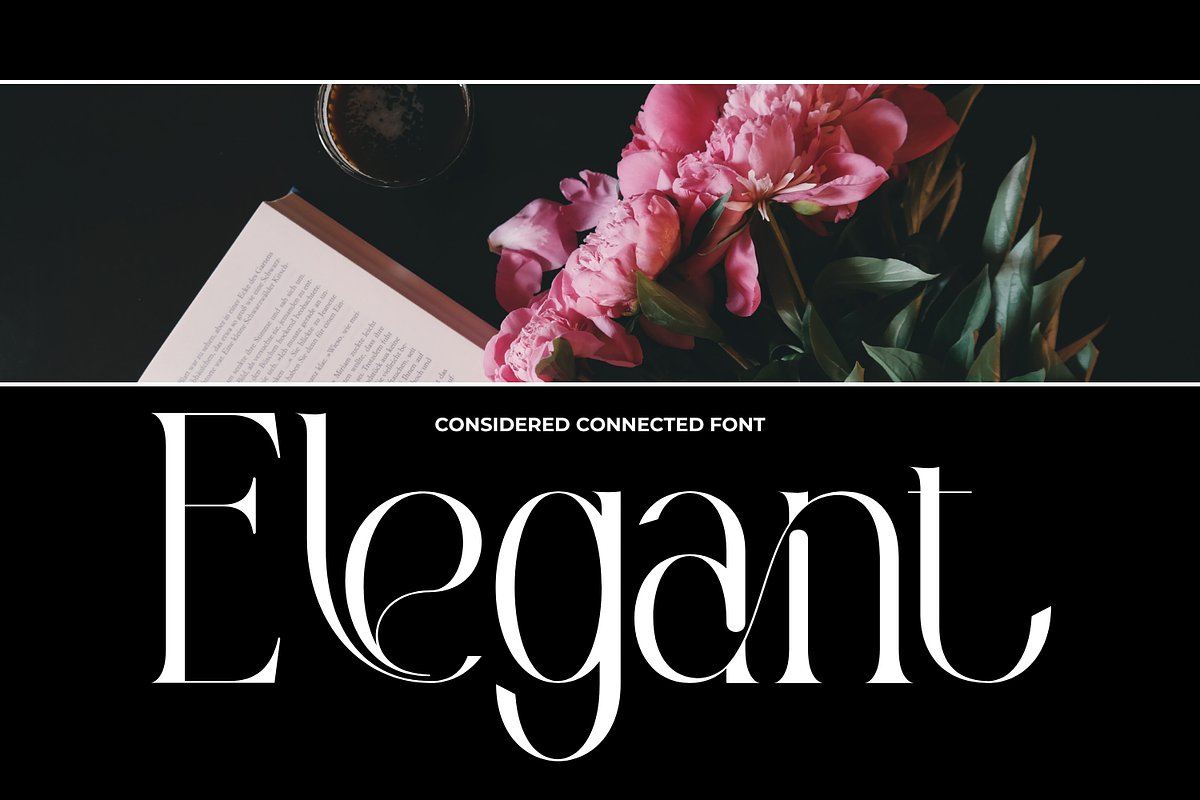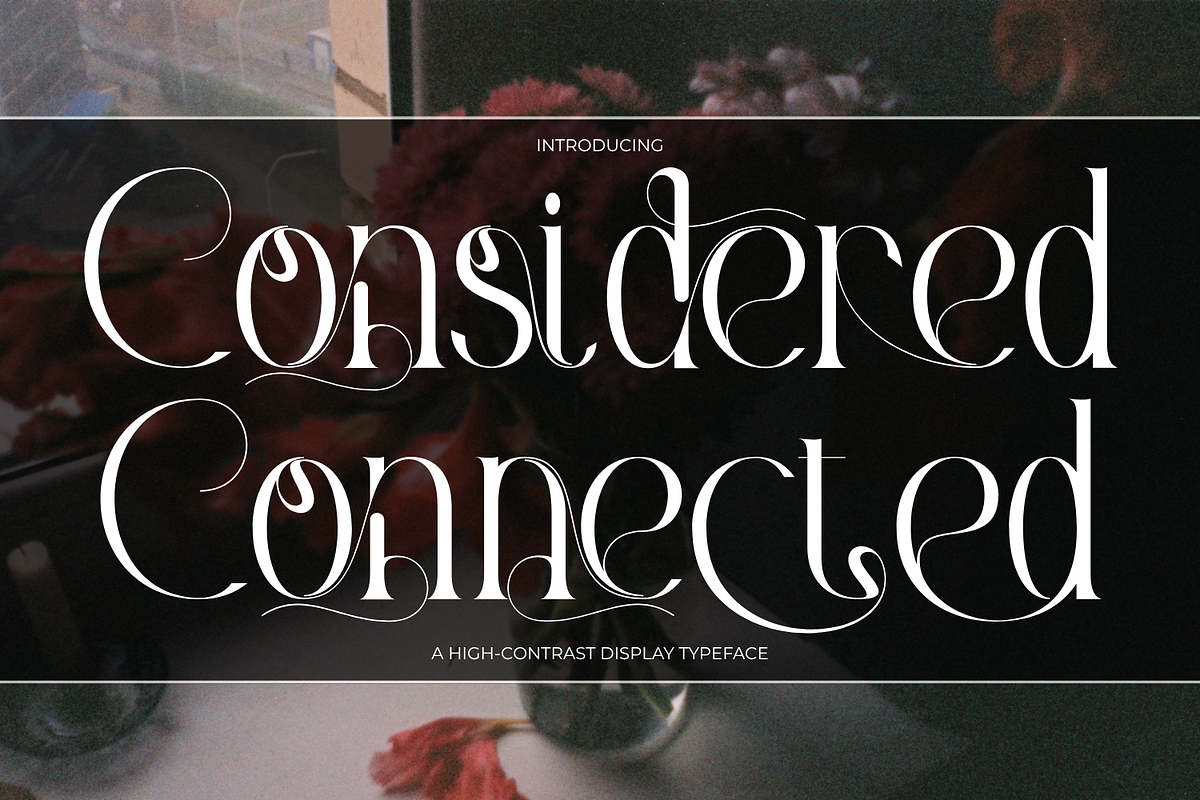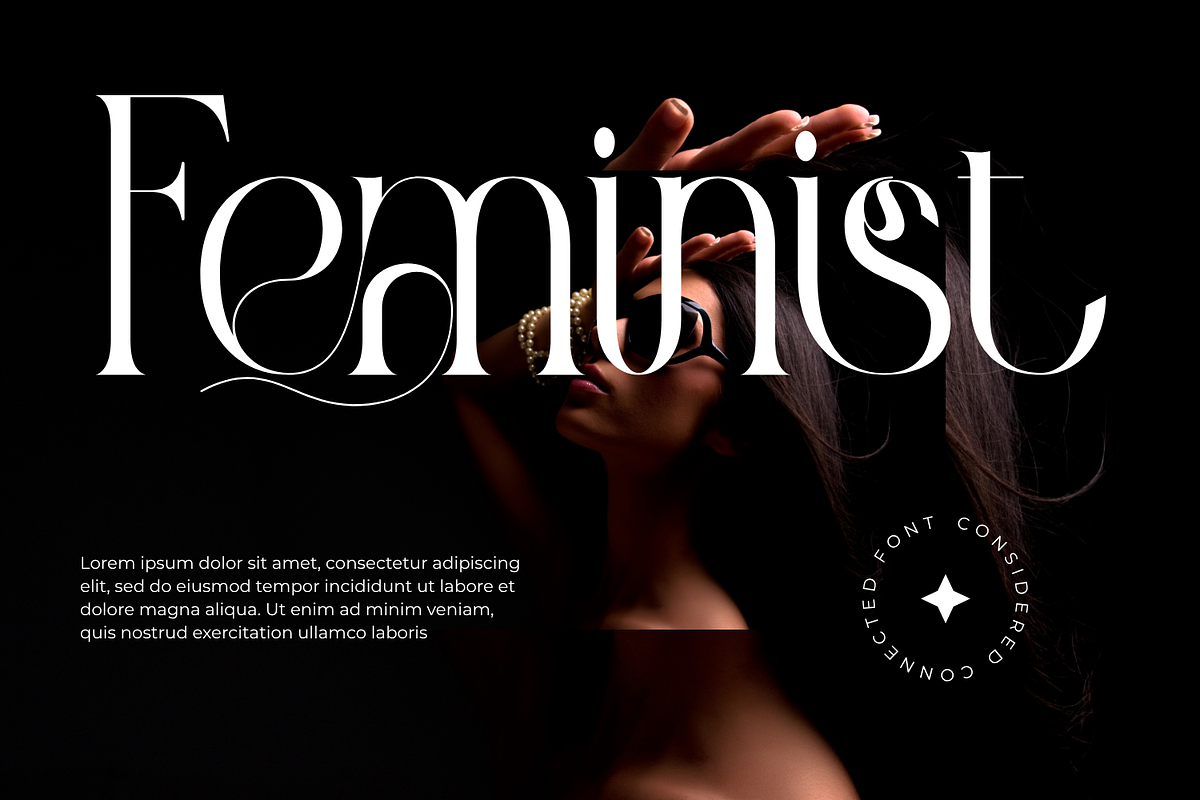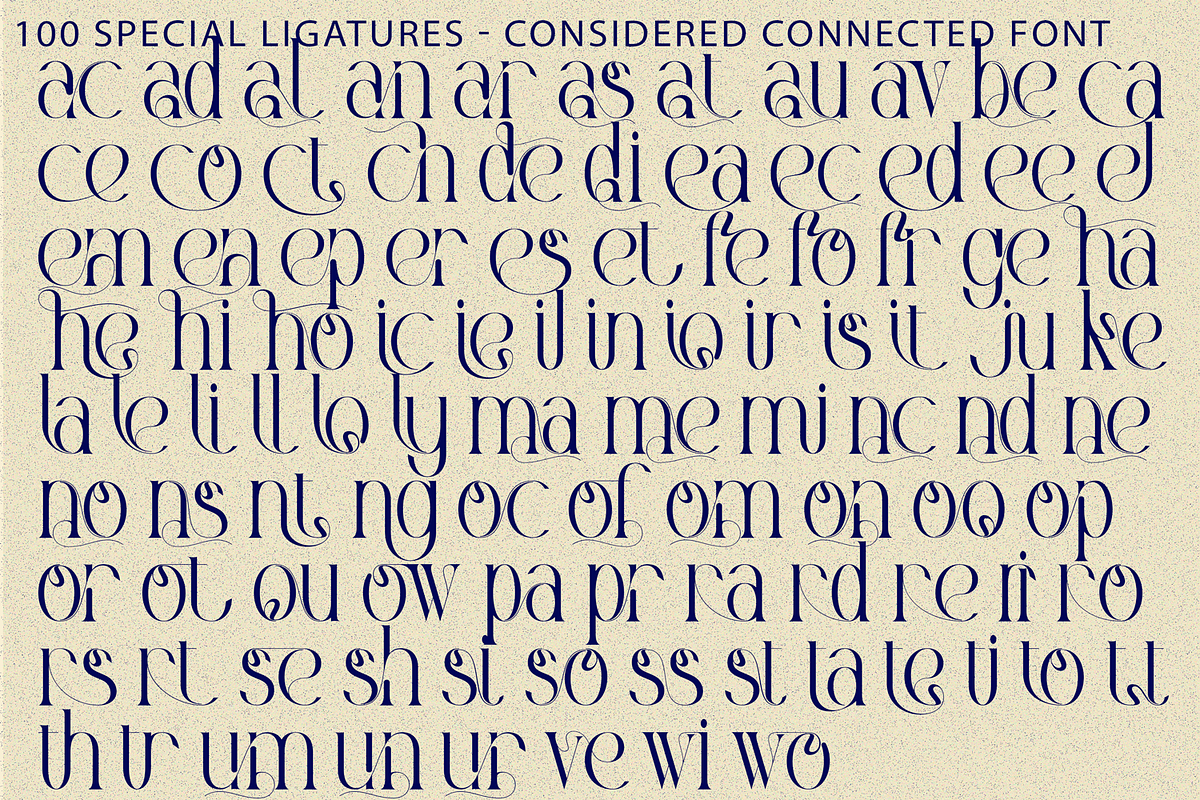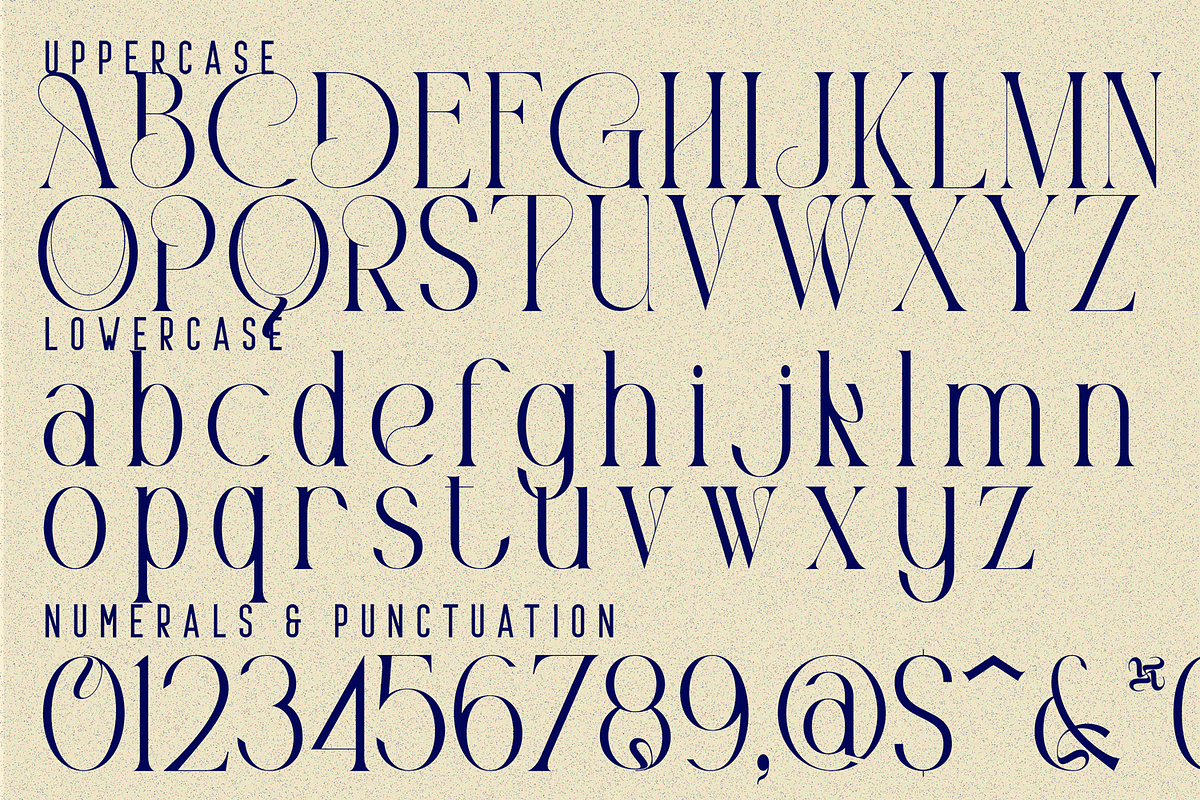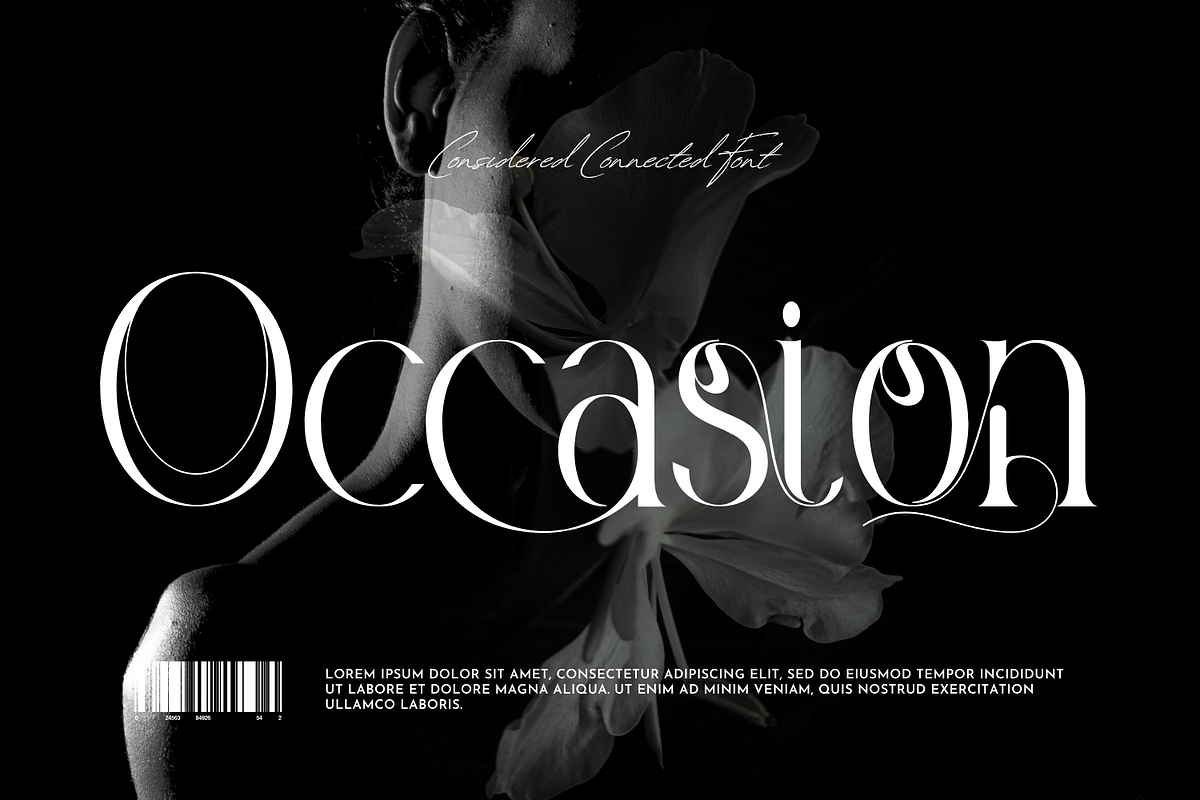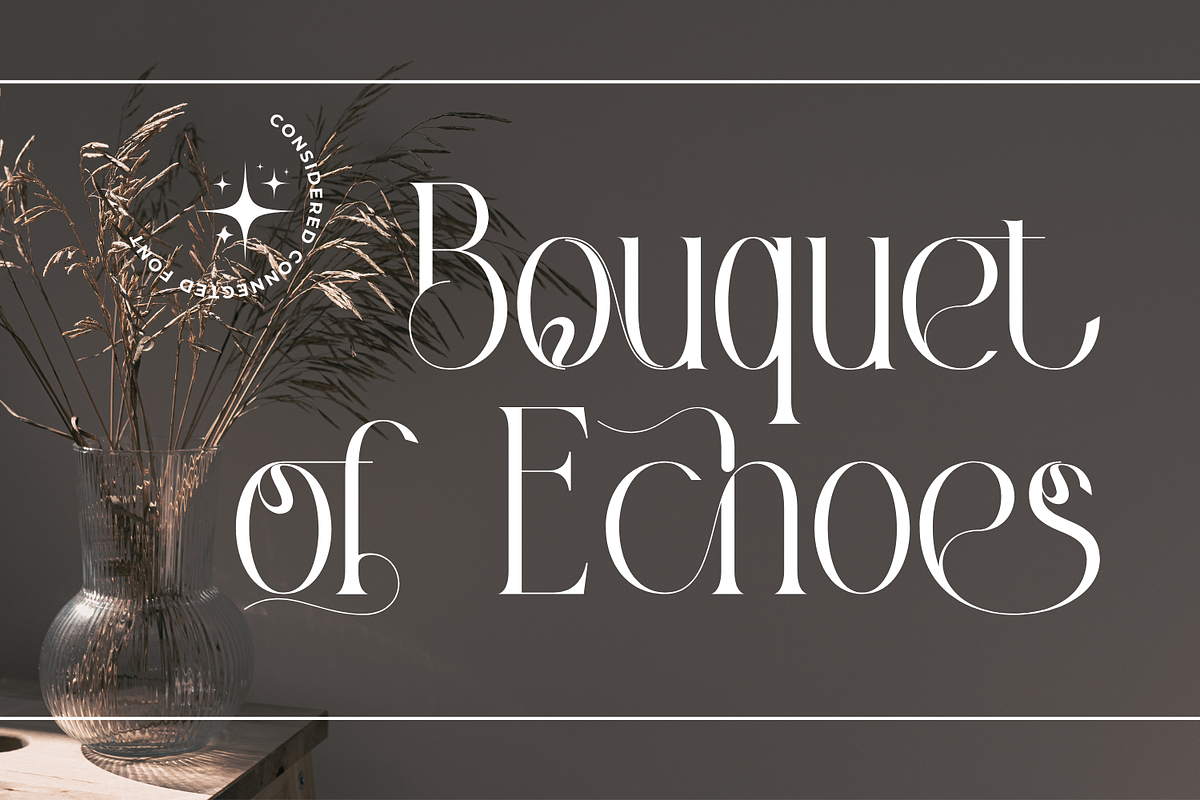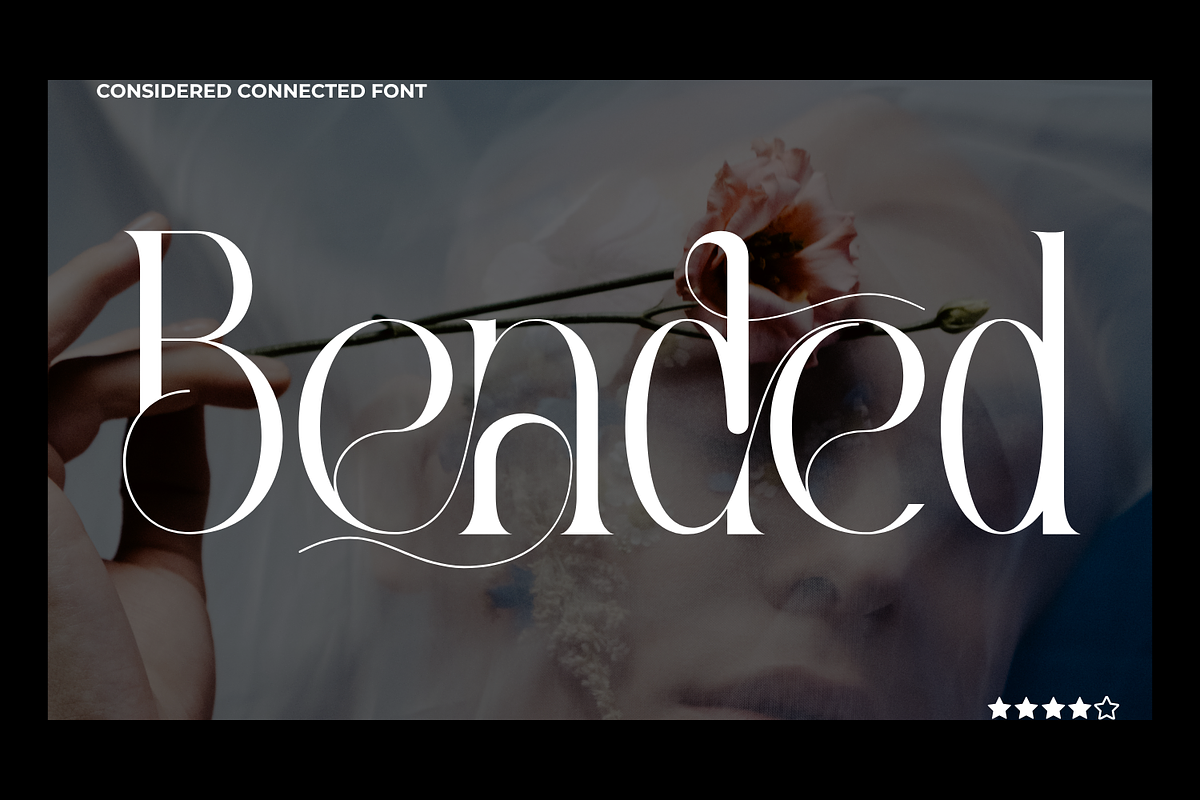
Considered Connected - Elegant Serif
Considered Connected - Elegant Serif Font – Modern Botanical Calligraphic Serif & High-Fashion Display Font is an elegant high-contrast display serif that blends refined editorial sophistication with the expressive beauty of calligraphic flourishes. Characterized by graceful proportions, dramatic thick-to-thin contrast, delicate hairlines, and sweeping ornamental curves, the typeface transforms classic serif forms into an expressive and luxurious typographic statement. Long swashes flow naturally around the letters, while curled terminals and finely drawn details give each character a distinctive sense of movement and personality.
Inspired by the elegance of fashion typography and traditional calligraphic lettering, Considered Connected balances timeless refinement with a contemporary decorative approach. Its slender strokes and sculptural curves create an airy, sophisticated rhythm, while extravagant flourishes add romance and visual drama without losing the underlying elegance of the letterforms. At large display sizes, these details become especially striking, allowing individual words to function almost as custom lettering.
🔤Features:
Uppercase & Lowercase Letters
Around 100 Special Ligatures & Alternates
Accented Characters for multilingual support
🔤About 100 ligatures combined with Stylistic Alternates Font:
ac ad al an ar as at au av be ca ce ch co ct de di ea ec ed ee el em en ep er es et fe fo fr ge ha he hi ho ie ic il in io ir is it ju ke la le li ll lo ly ma me mi nc nd ne ng no nt ns oc of om on oo op or ot ou ow pa pr ra rd re ri ro rs rt se sh si so ss st ta te th ti to tr tt um un ur ve wi wo